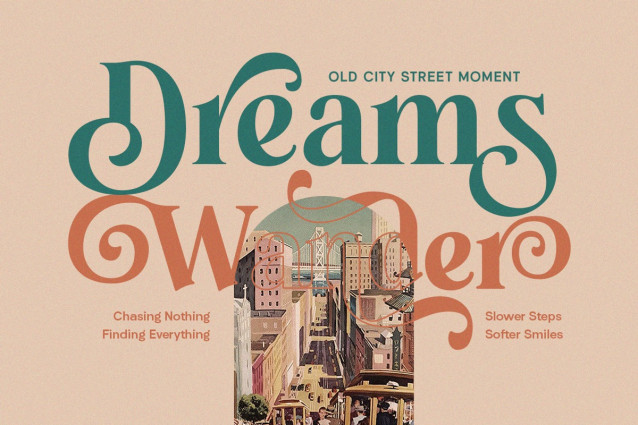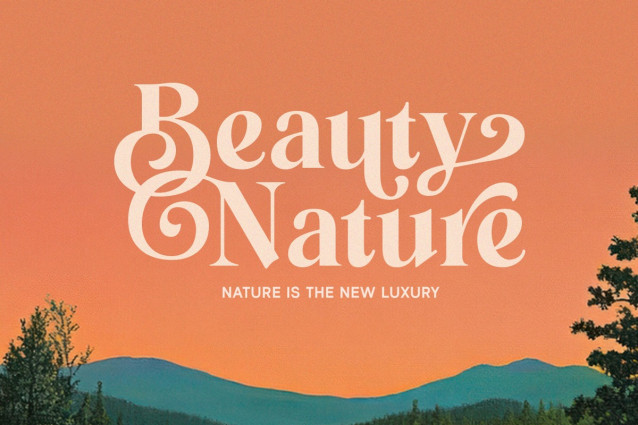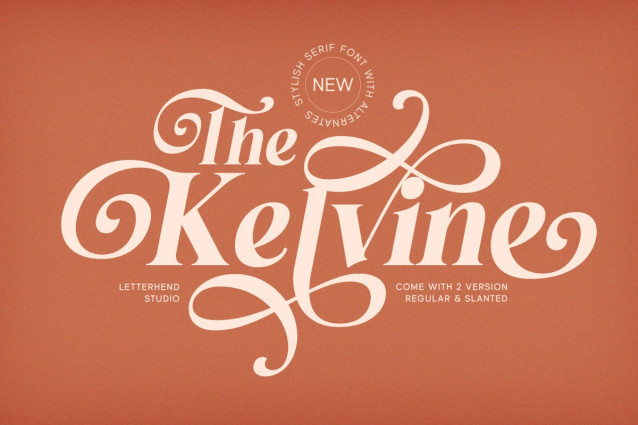
Kelvine Font
Kelvine Font – a bold, stylish serif font that’s all about elegance with a dramatic twist. Each letter flows with graceful curves and ornate swashes, perfect for those who love fonts with flair. Designed with luxurious alternates and high contrast strokes, it blends vintage charm with a modern edge. Ideal for logos, wedding invites, packaging, or anything that needs a touch of sophistication. It comes in two versions: Regular and Slanted, giving you even more creative freedom.